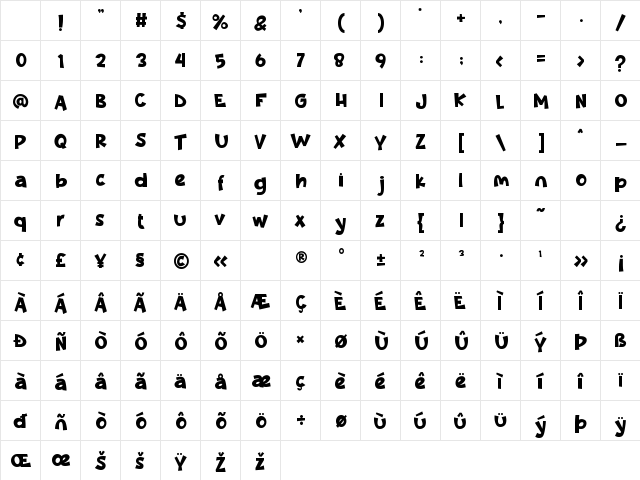
Complete Night Clown Regular glyph index. Displaying only characters natively supported by Night Clown Regular font.
Night Clown is a composed and adaptable typeface that performs quietly and consistently across a wide range of design contexts.